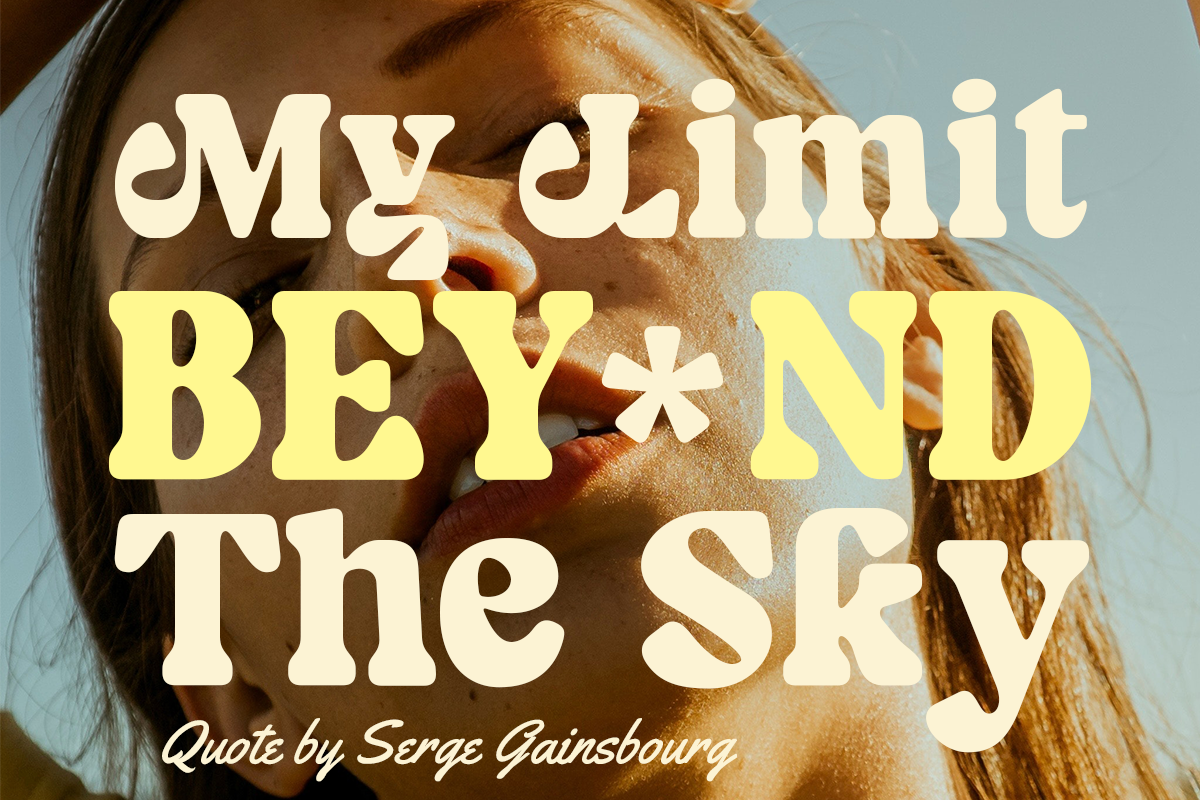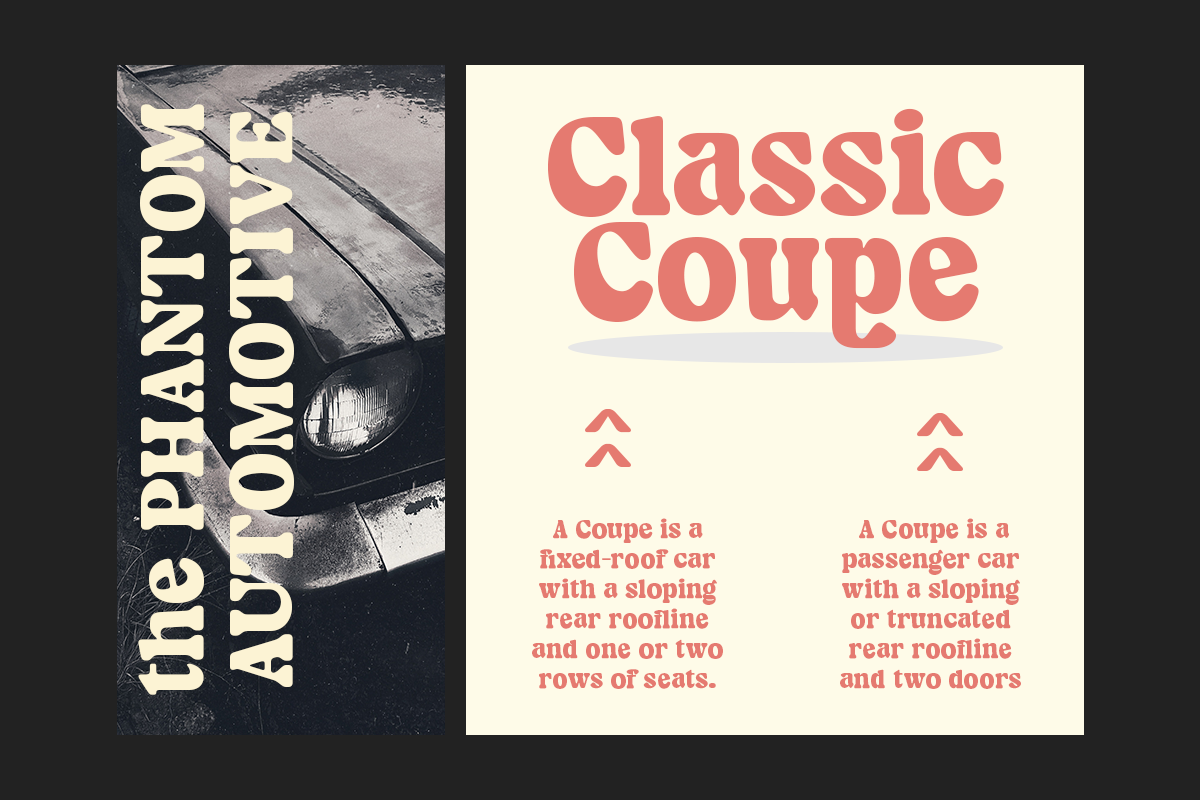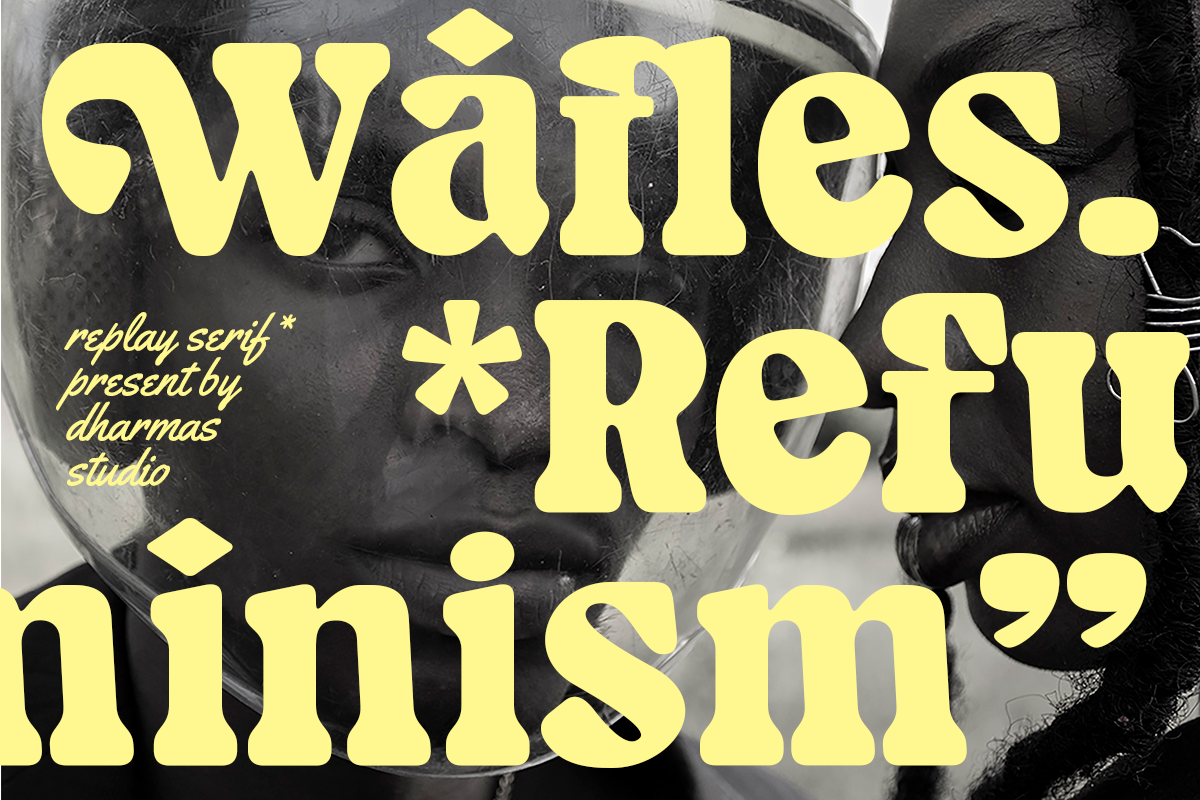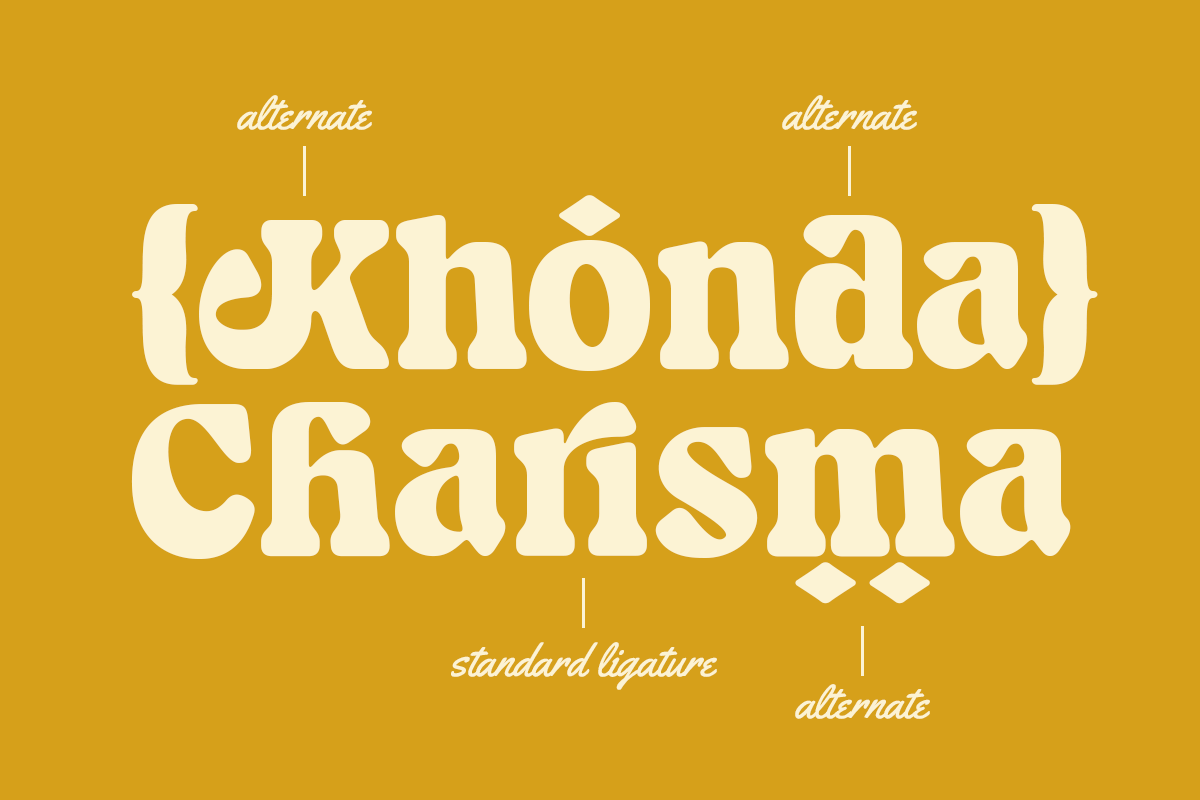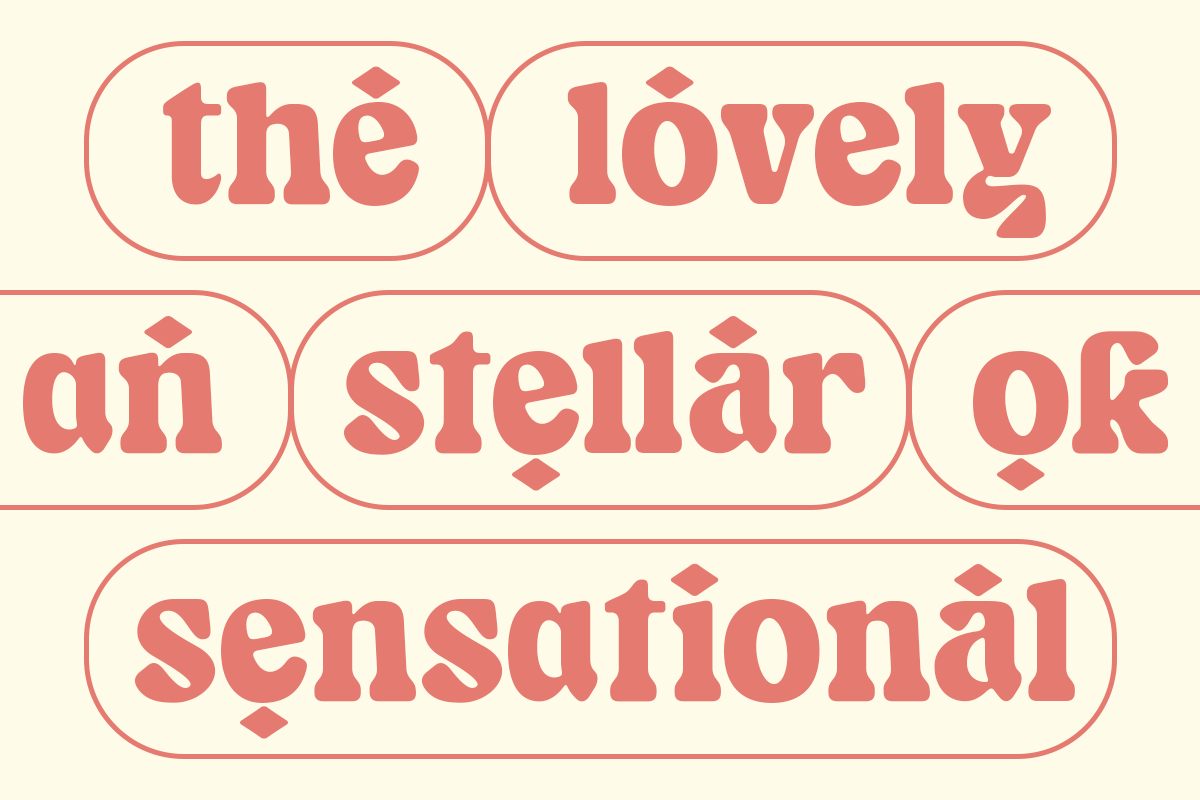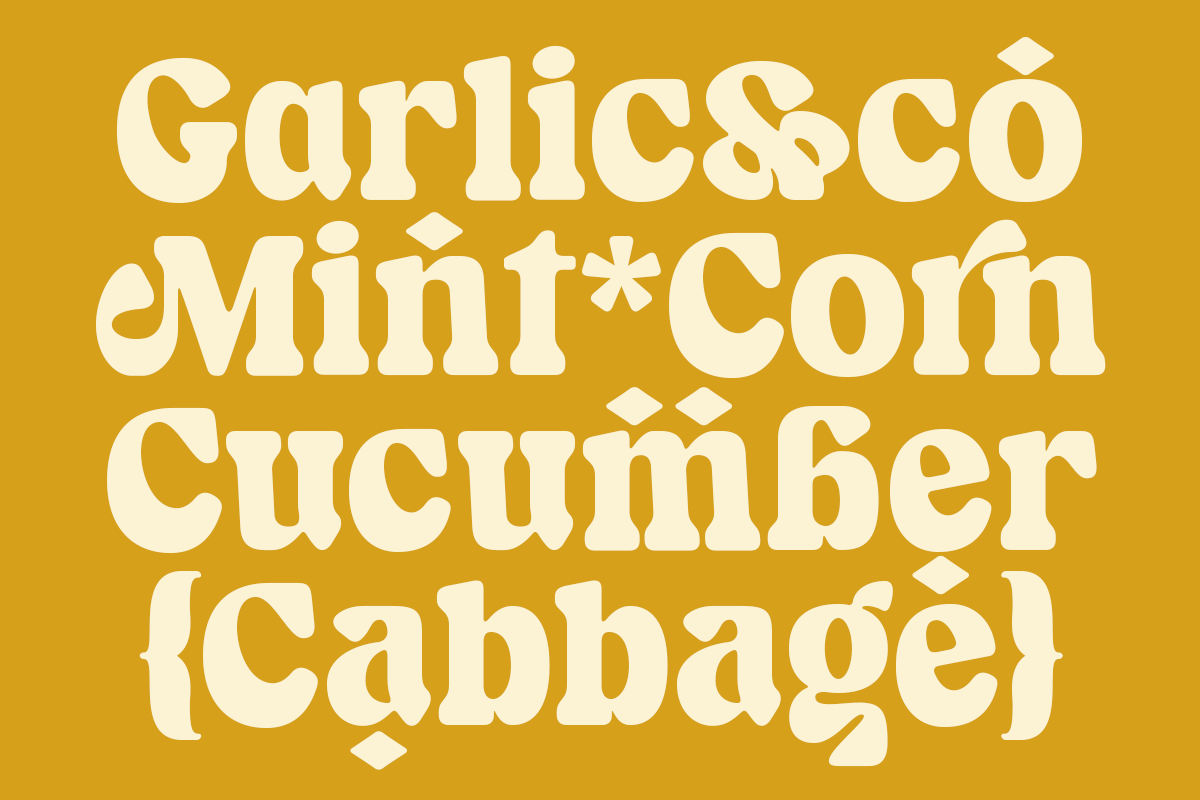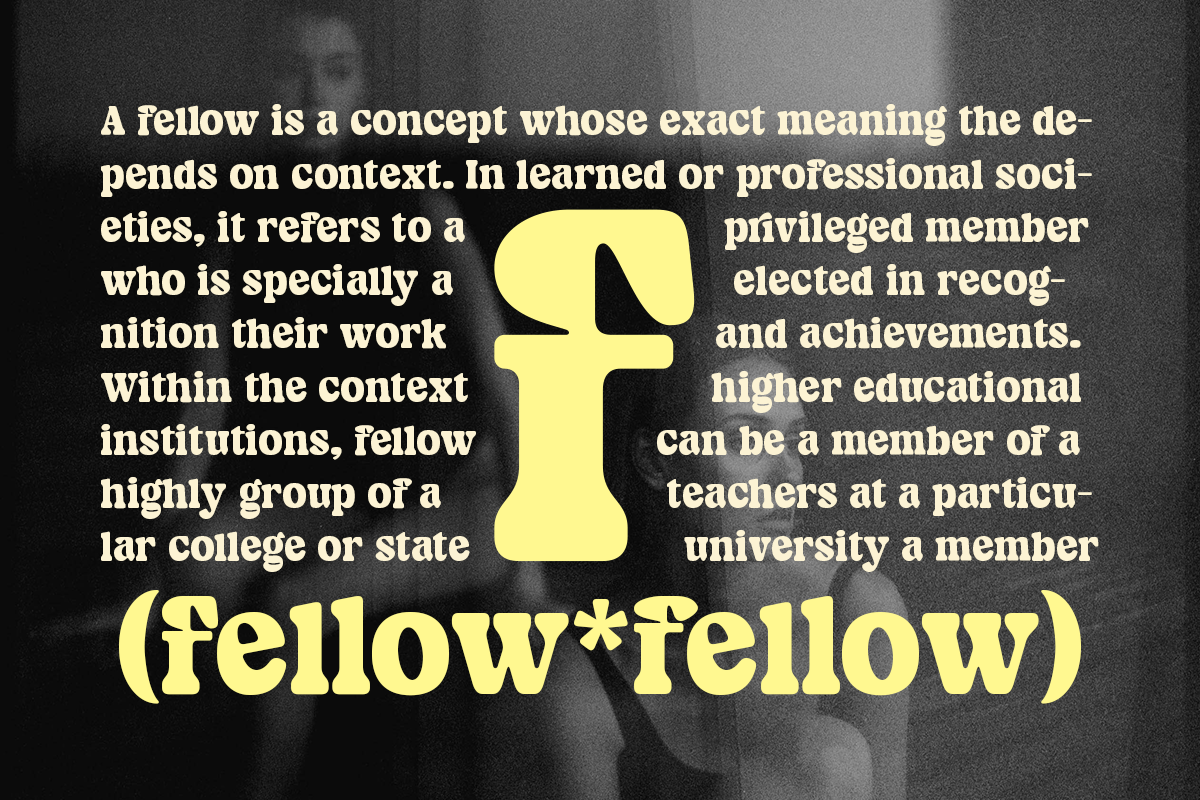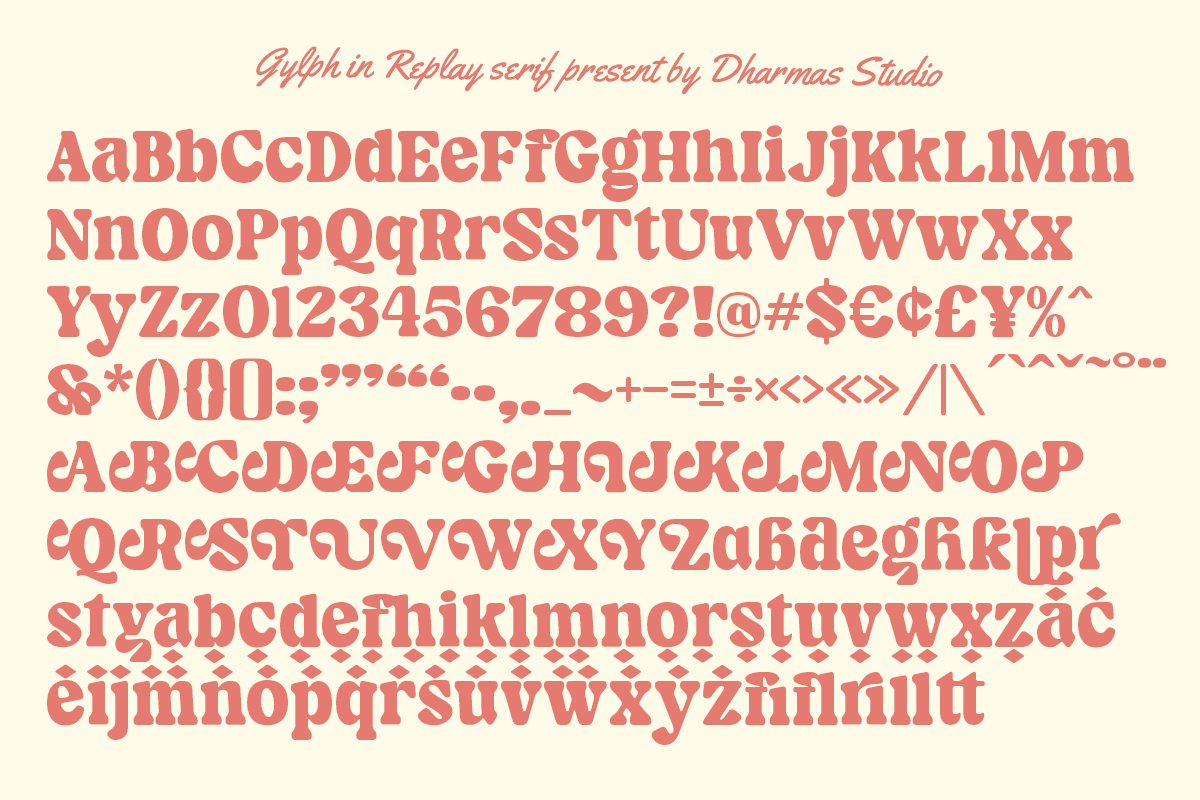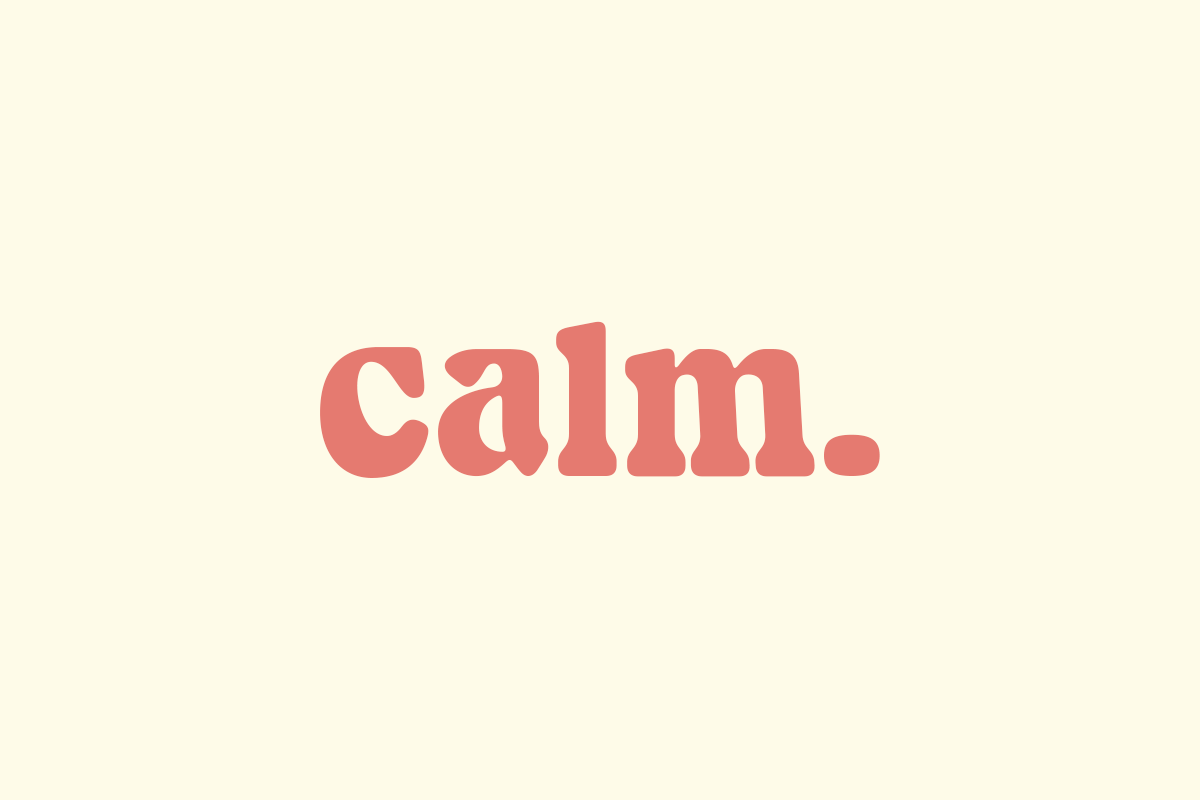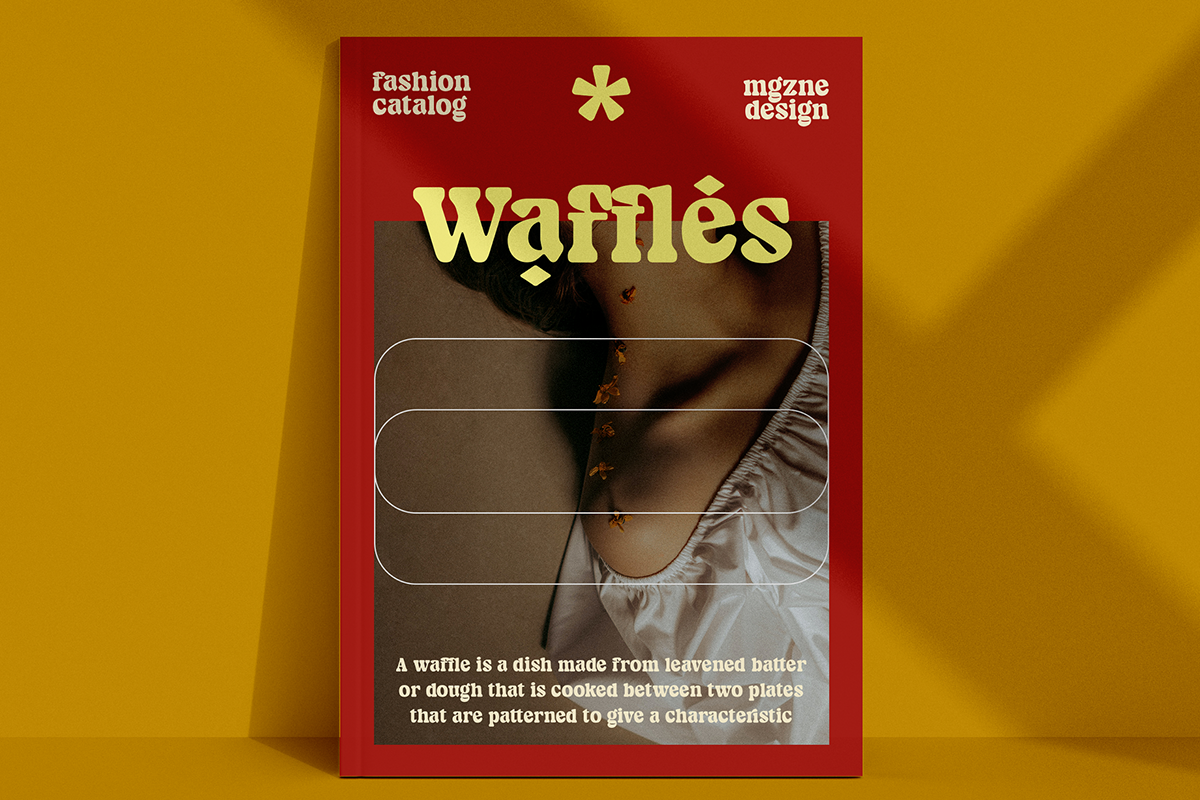
Replay - Sixties Rounded Serif
Replay - Inspired by more than a hundred years from Cooper Black, Replay has a soft and rounded old-style serif typeface from the sixties era. Replay give a clean and versatile letterform that fits not only for display but also for reading purposes.
Replay - equipped with several OpenType. Have 84 unique alternates and ligatures which consist of 3 stylistic sets. Comes with alternatives and ligatures, and helps to create stunning logos, quotes, posts, blog posts, branding projects, magazine imagery, wedding invitations, and much more.
Letters, numbers, symbols, and punctuation
84 unique alternates and ligatures